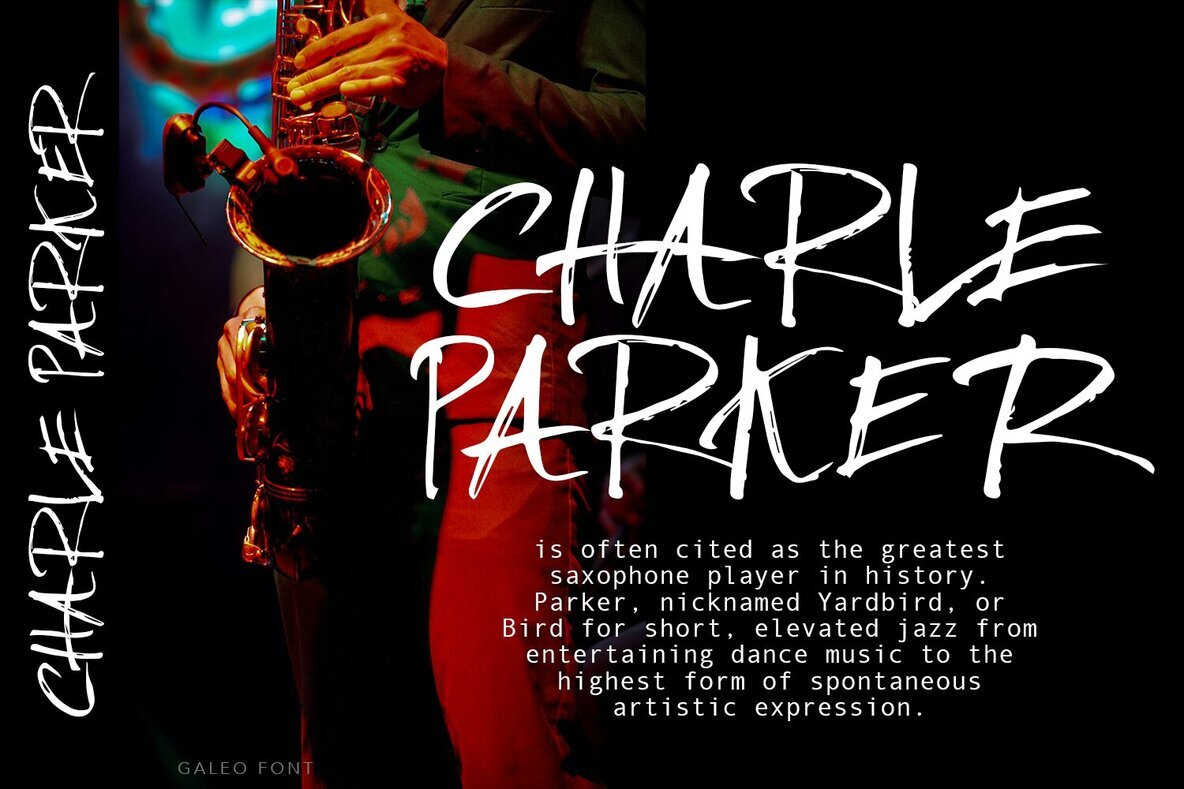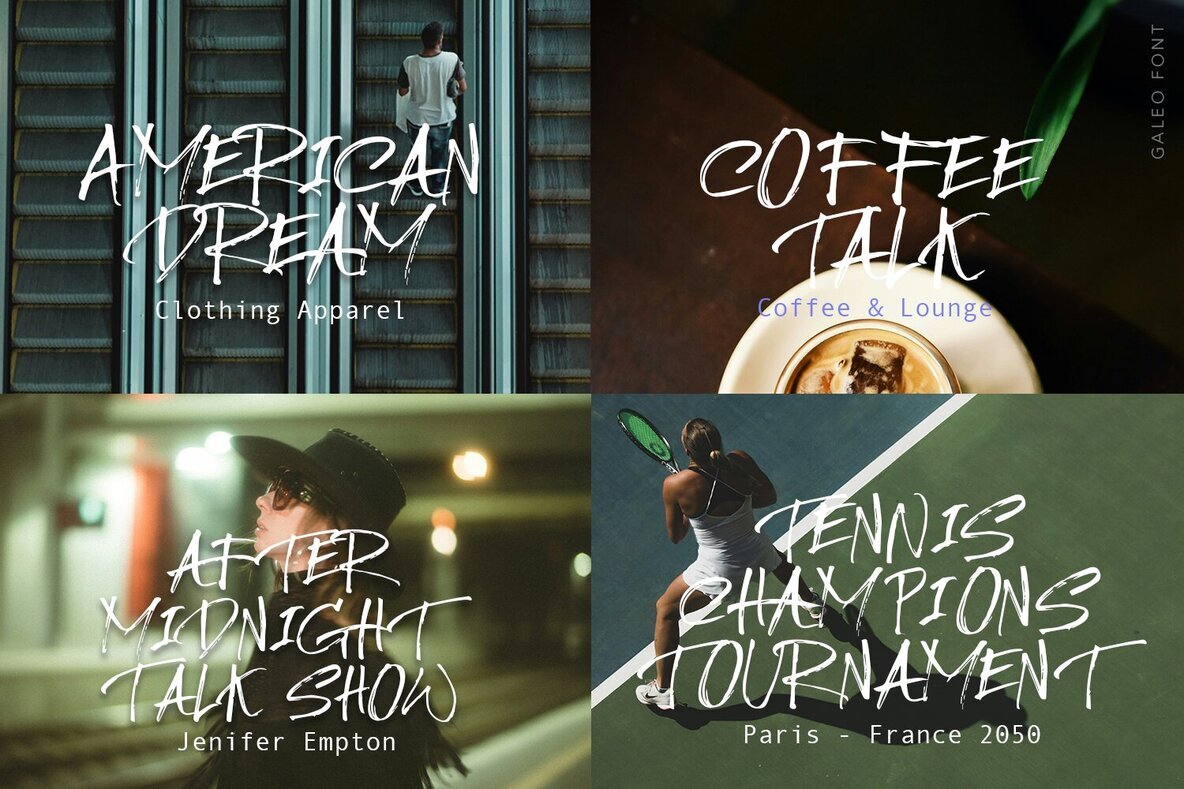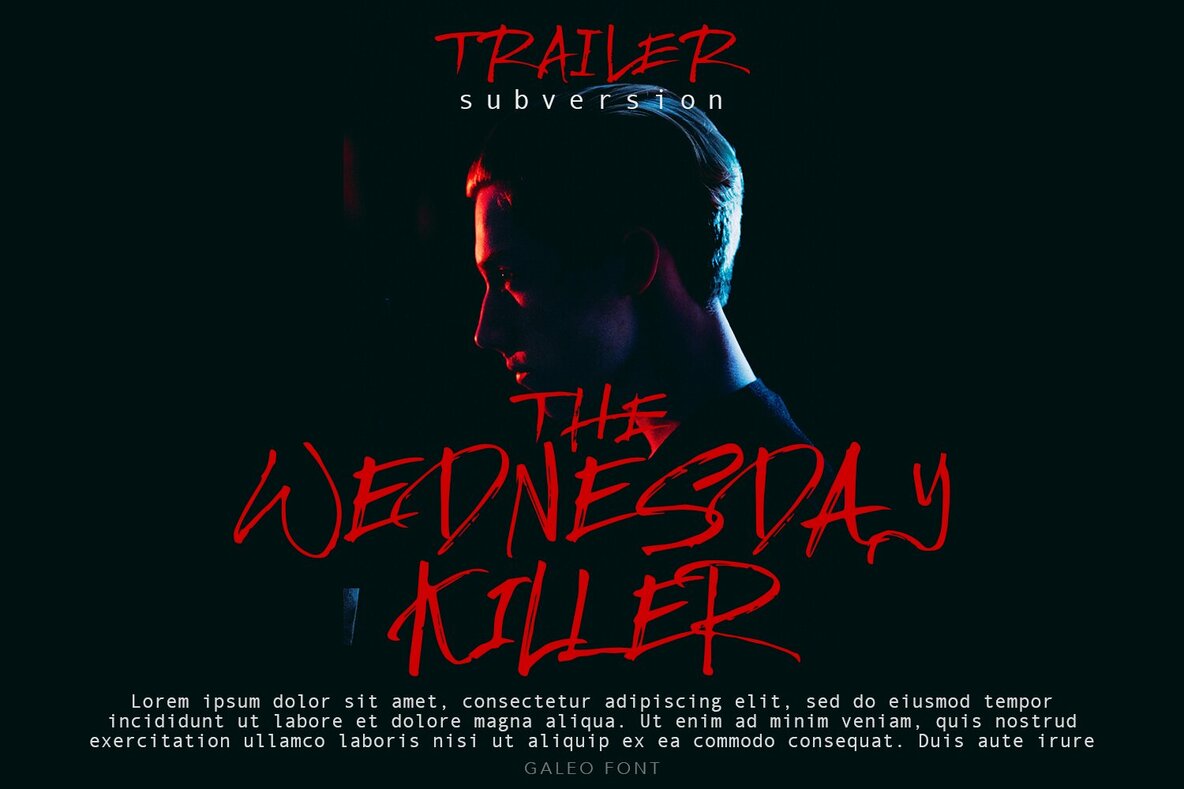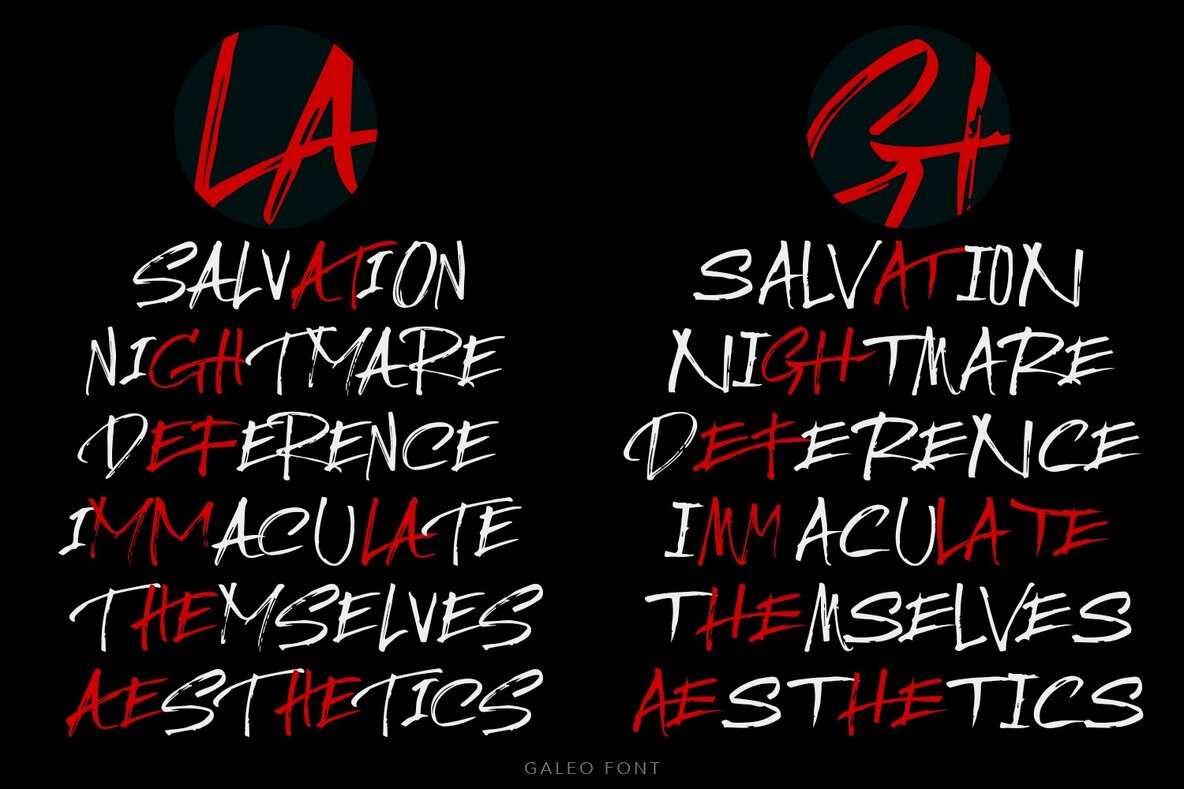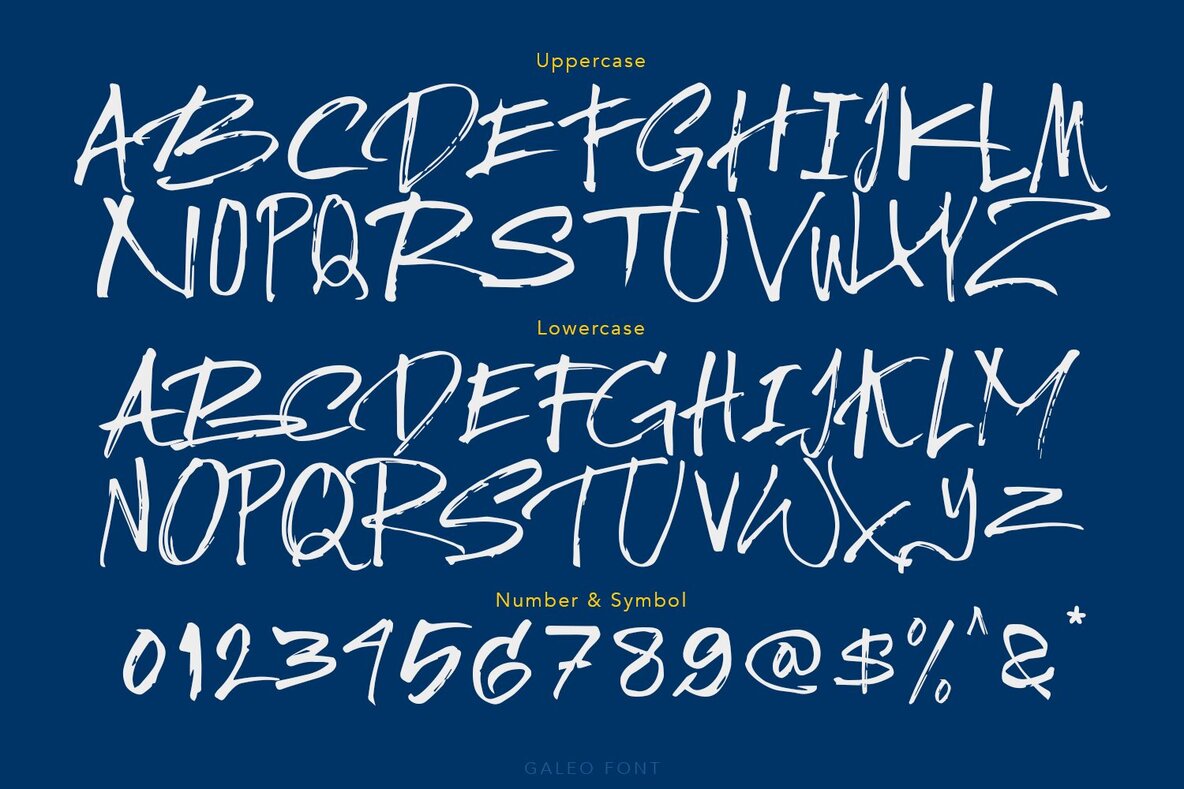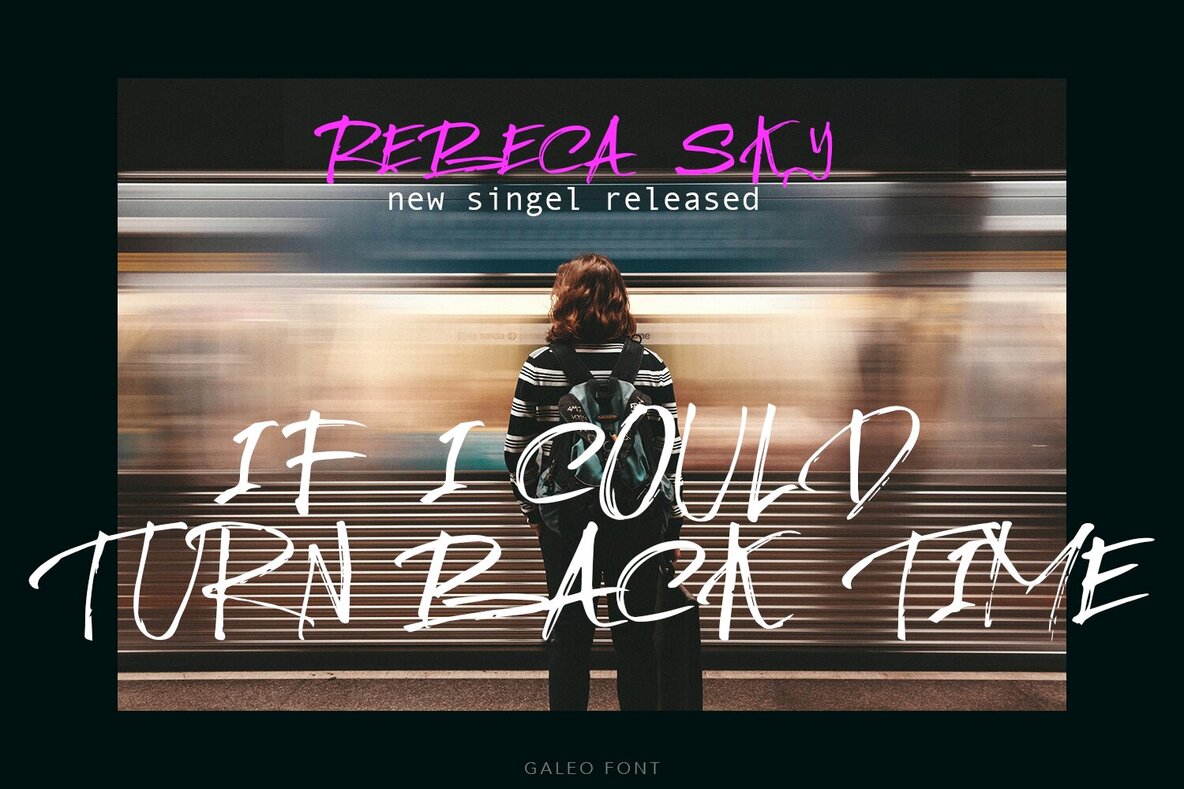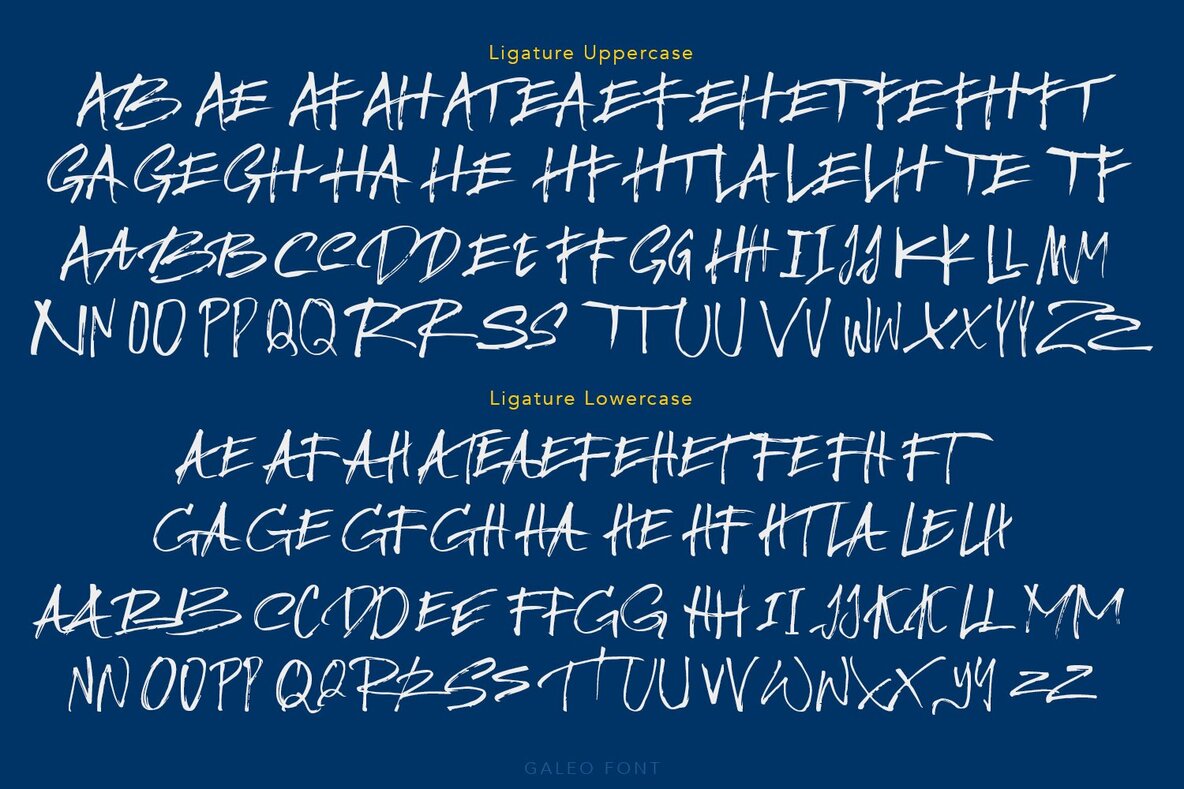
Galeo Font
Galeo Regular
Galeo is a brush font contains 90+ ligatures comes with proud all caps font was hand drawn with a real brush marker. This font perfect for branding, posters, logos, fashion, headline and more.